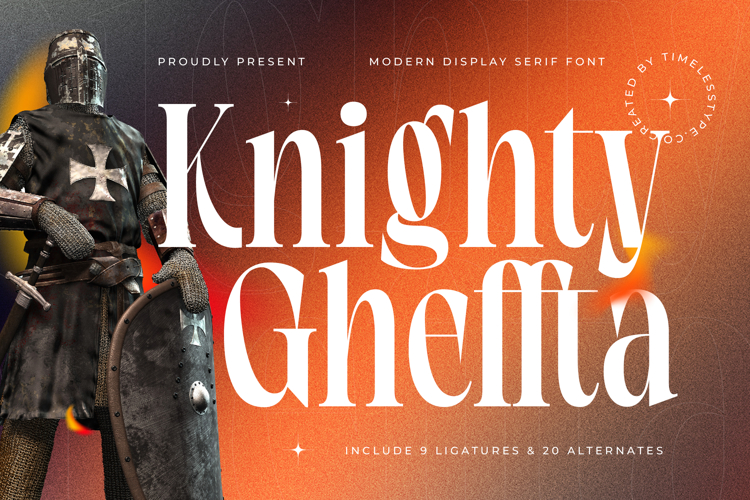
Knighty Gheffta - Modern Display Serif Font
The Knighty Gheffta Typeface is a modern display serif font with a bold, majestic, and historical aura. Featuring 9 ligatures and 20 stylistic alternates, this typeface delivers elegant typography with tall proportions, sharp contrasts, and decorative details that combine classical charm with a modern edge. Inspired by the strength of knights and the aesthetics of the medieval era, Knighty Gheffta is perfect for designs that emphasize elegance, power, and epic storytelling.
This font is highly effective in editorial design, especially for history-themed magazines, fantasy book covers, and artistic layouts. With its ligatures and alternates, every composition can appear dramatic, expressive, and unique.
In branding and packaging, Knighty Gheffta is ideal for luxury products, fine beverages, jewelry, premium fashion, and brands with historical or fantasy-inspired themes. Its refined aesthetic creates an exclusive and iconic visual identity that is easy to recognize.
For entertainment and promotional design, this typeface works beautifully on epic movie posters, theater promotions, classical or metal music album covers, and history-themed festivals. Its strong serif character enhances visual storytelling with a theatrical and elegant touch.
In the realm of digital design, Knighty Gheffta excels across social media content, premium websites, digital advertising, and motion graphics, ensuring typography remains dramatic and luxurious across platforms. With multilingual support, it is fully adaptable for global projects.
In short, Knighty Gheffta Typeface is a serif display font designed to embody strength, elegance, and an epic atmosphere. Perfect for editorial, branding, packaging, entertainment, advertising, and digital campaigns, this font elevates typography into a powerful, iconic, and timeless design element.